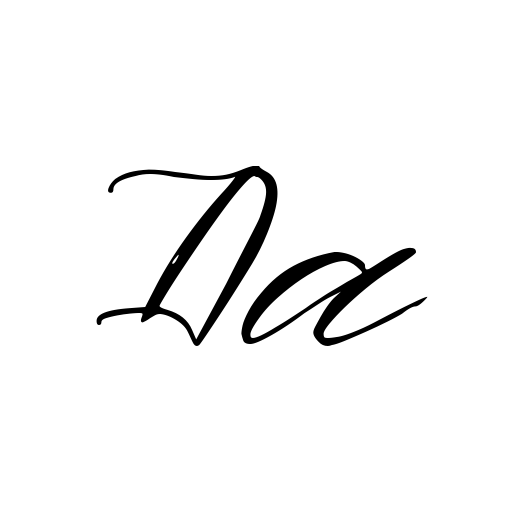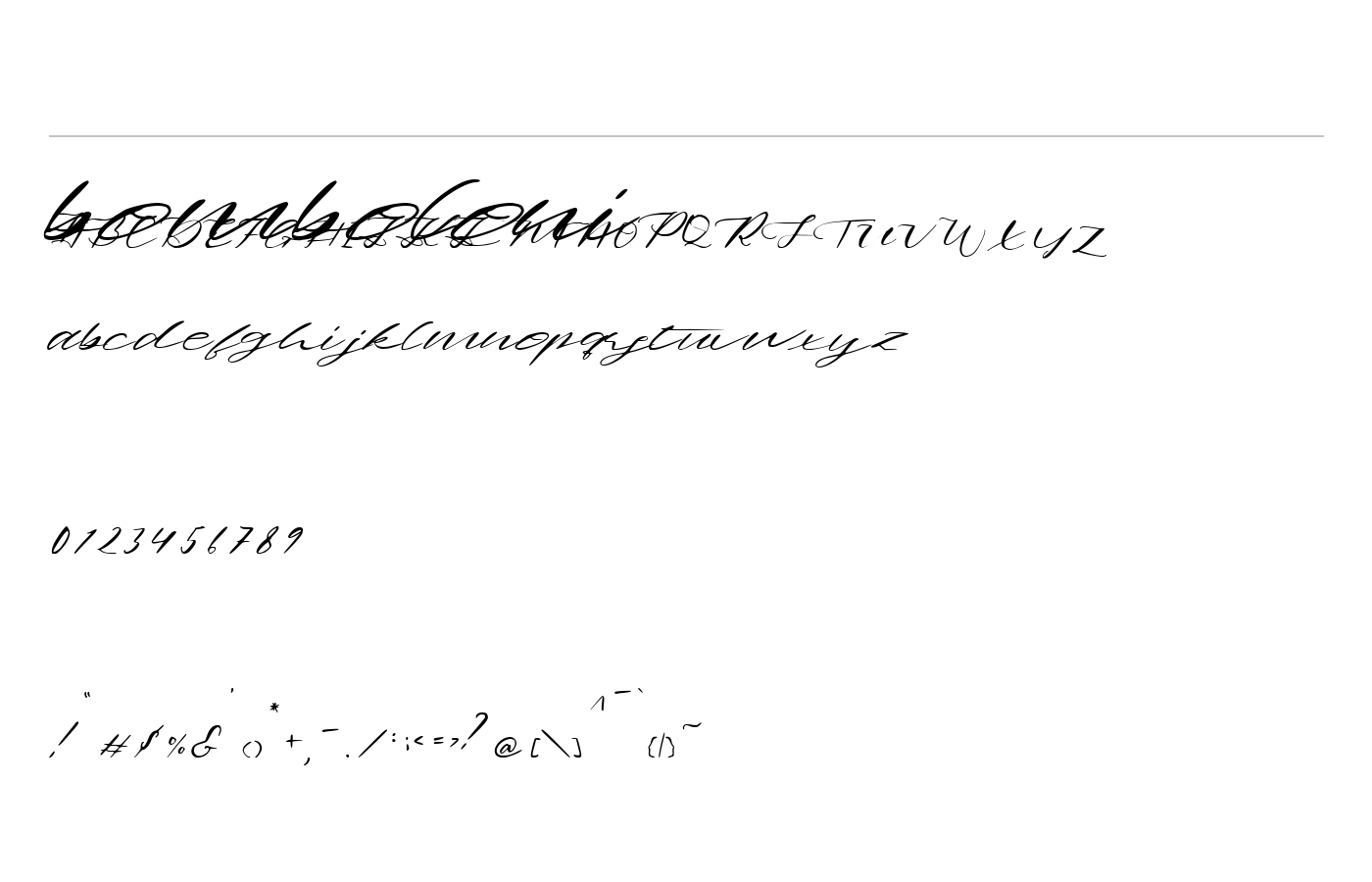
Bomboloni is a delicate, elegant script font that features thin, flowing strokes reminiscent of fine handwriting. Its narrow, lightly slanted letterforms create a refined and sophisticated appearance, making it ideal for upscale invitations, branding, and editorial projects where a touch of grace and subtle personality is desired. This font works beautifully in contexts that call for a stylish yet understated handwritten feel.
bomboloni Font
About bomboloni Font